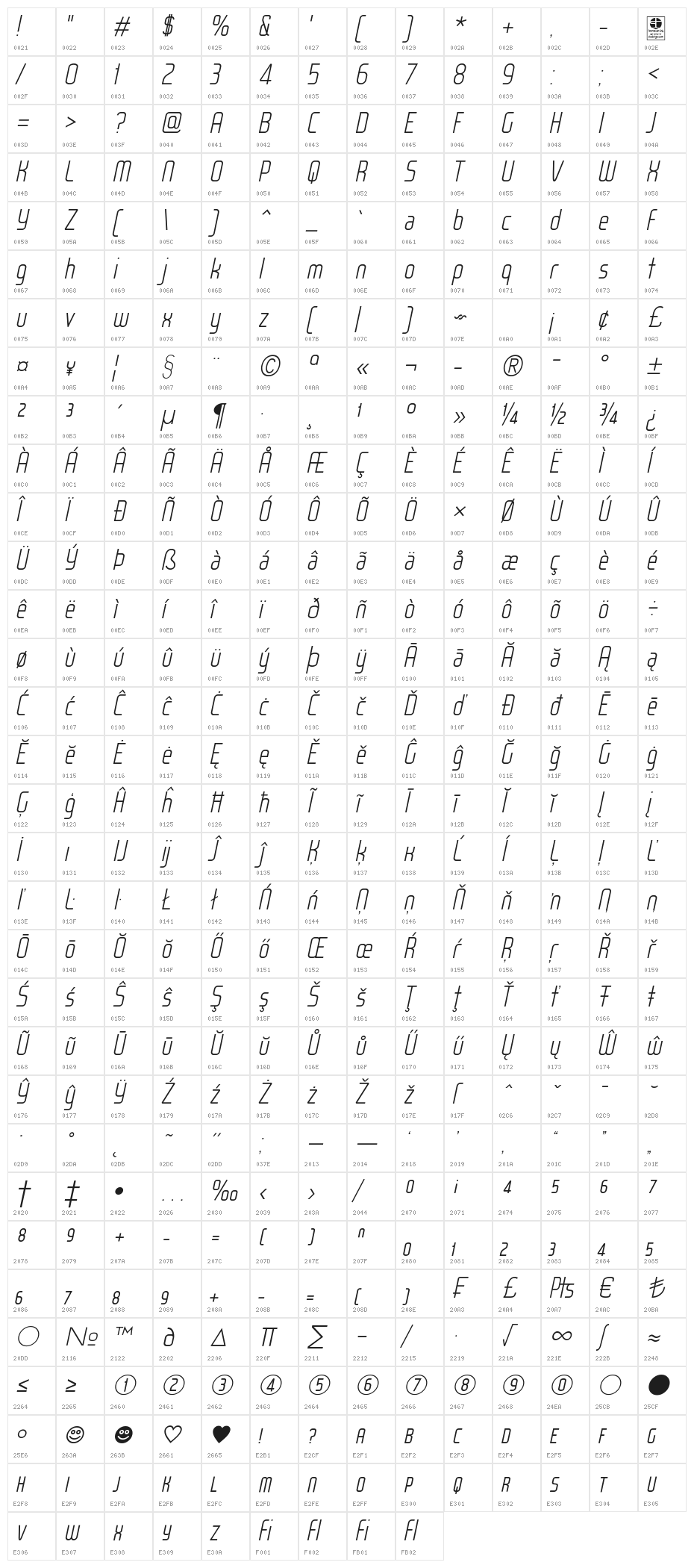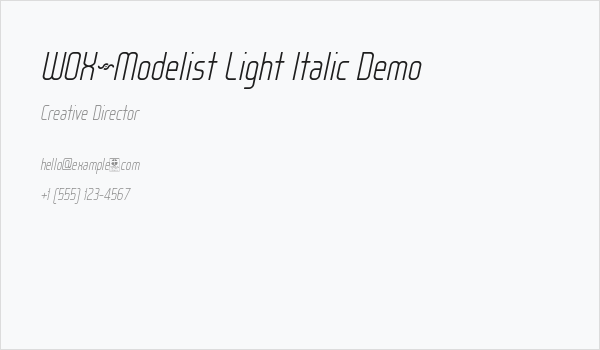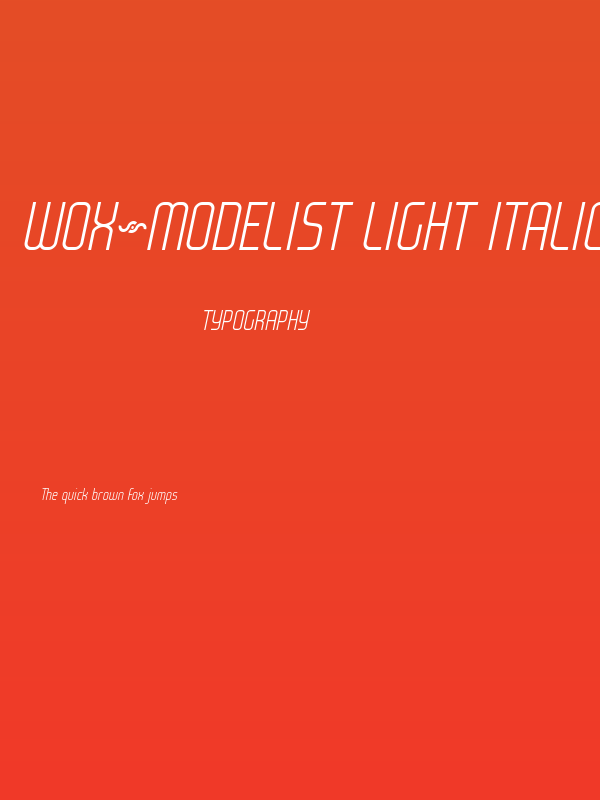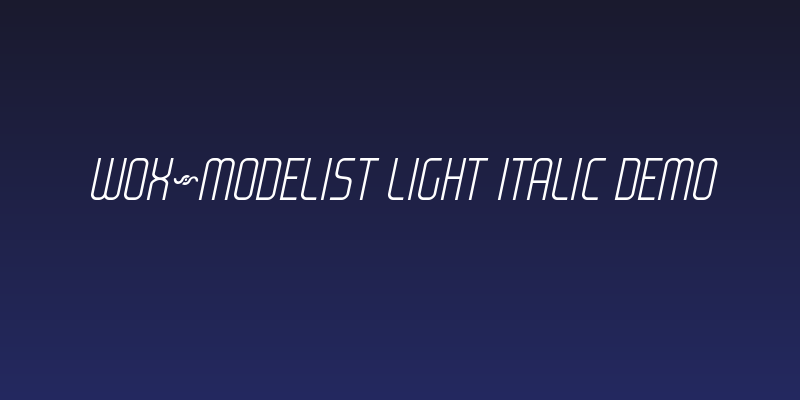
WOX~Modelist Light Italic Demo Font
WOX~Modelist Light Italic Demo Description
This font presents a sleek and modern design with a light, italicized style. The characters are elongated with a slight slant, giving a dynamic and fluid appearance. The uppercase and lowercase letters maintain a consistent height and width, contributing to a uniform look. The numerals are clear and distinct, matching the overall aesthetic. Special characters are included, maintaining the same stylistic approach. The font's thin strokes and minimal contrast make it suitable for contemporary design projects.
| Proposed Projects | Ideal for modern branding, tech-related designs, and minimalist posters. |